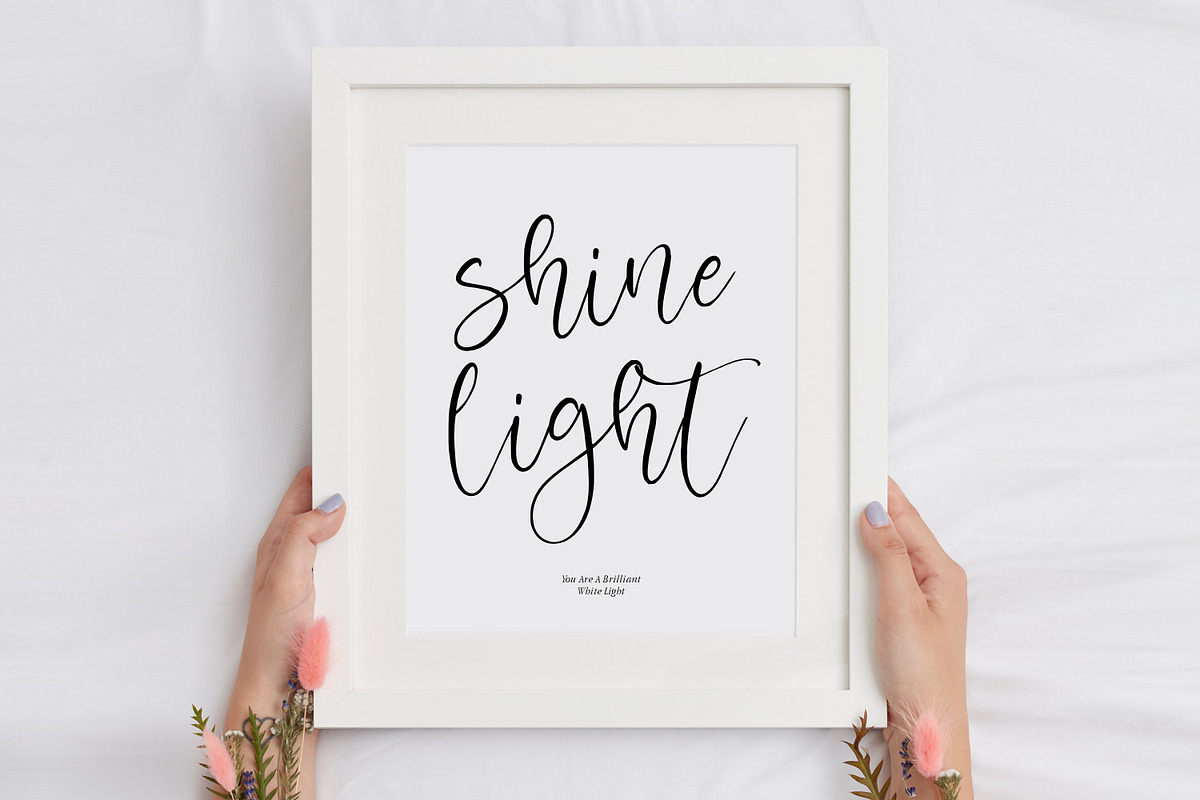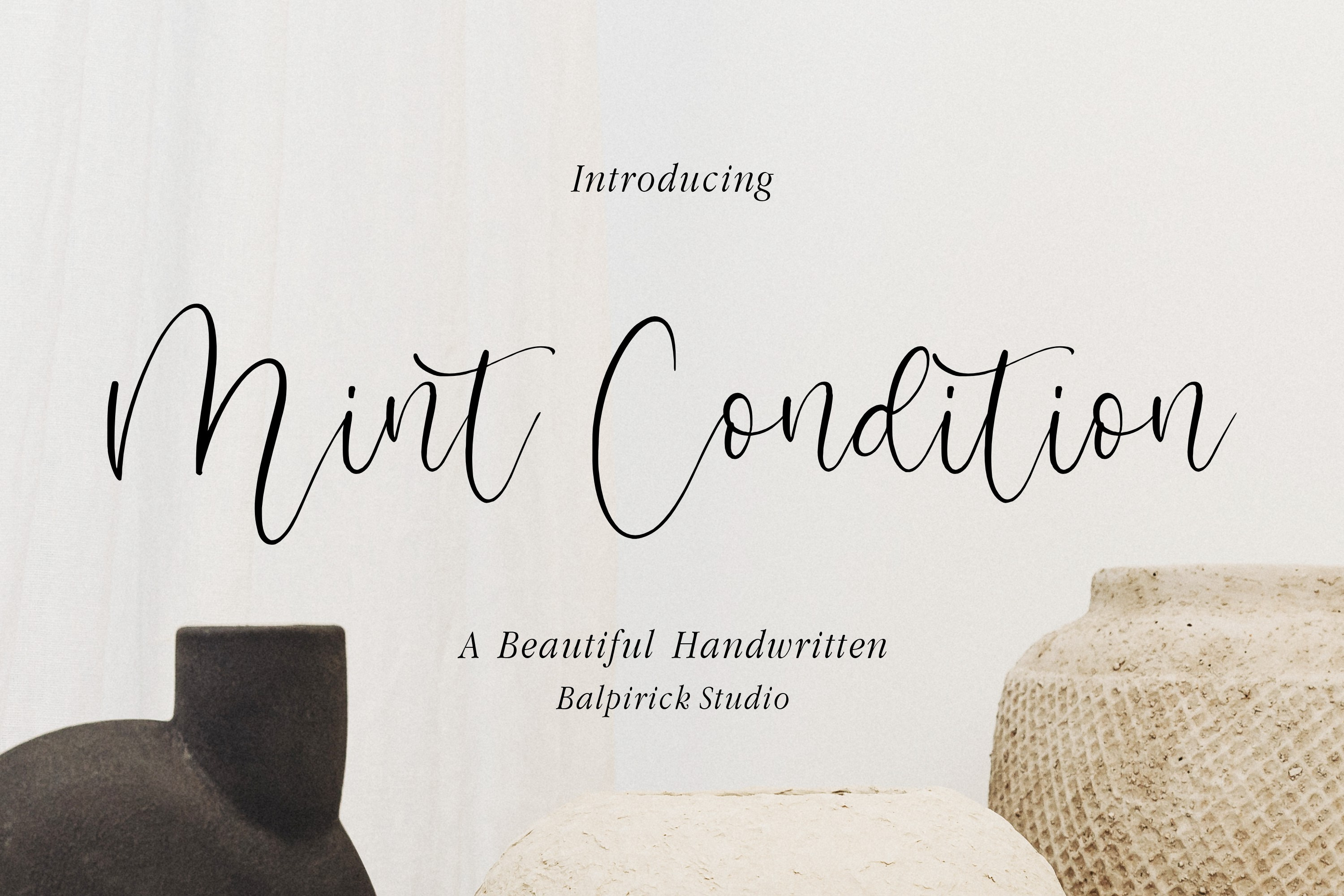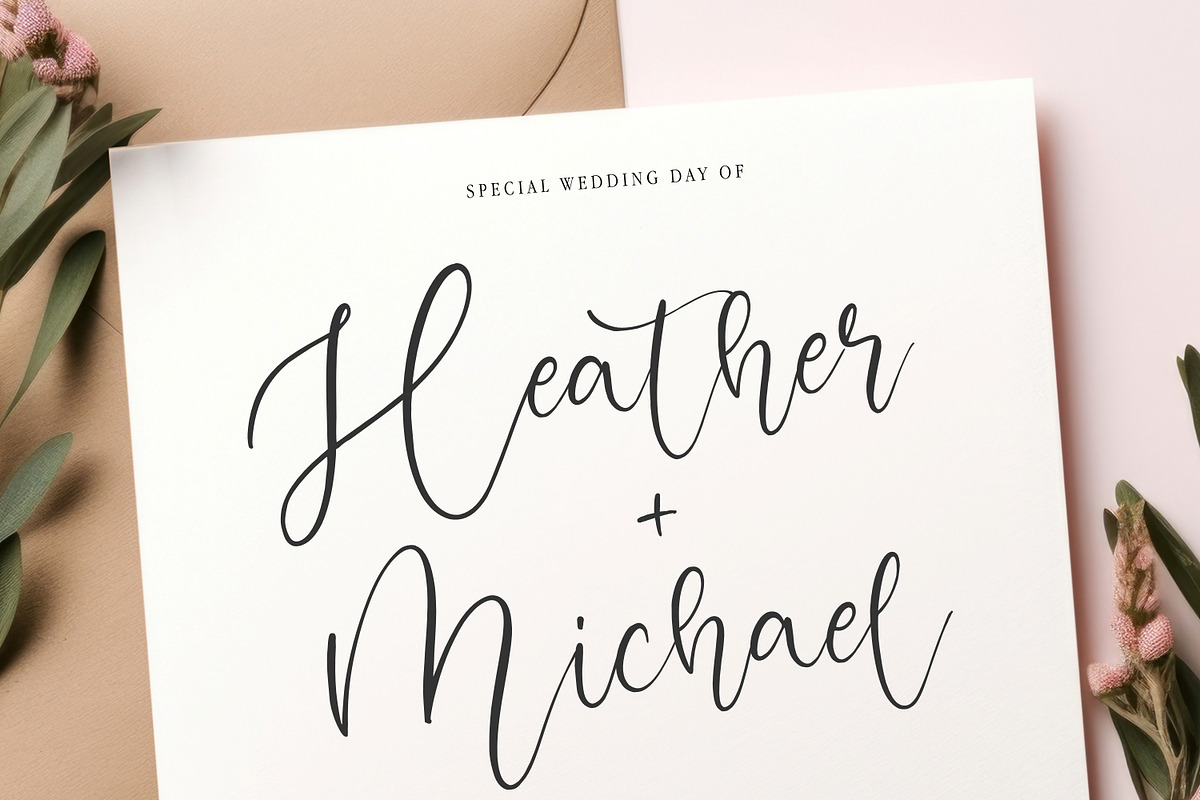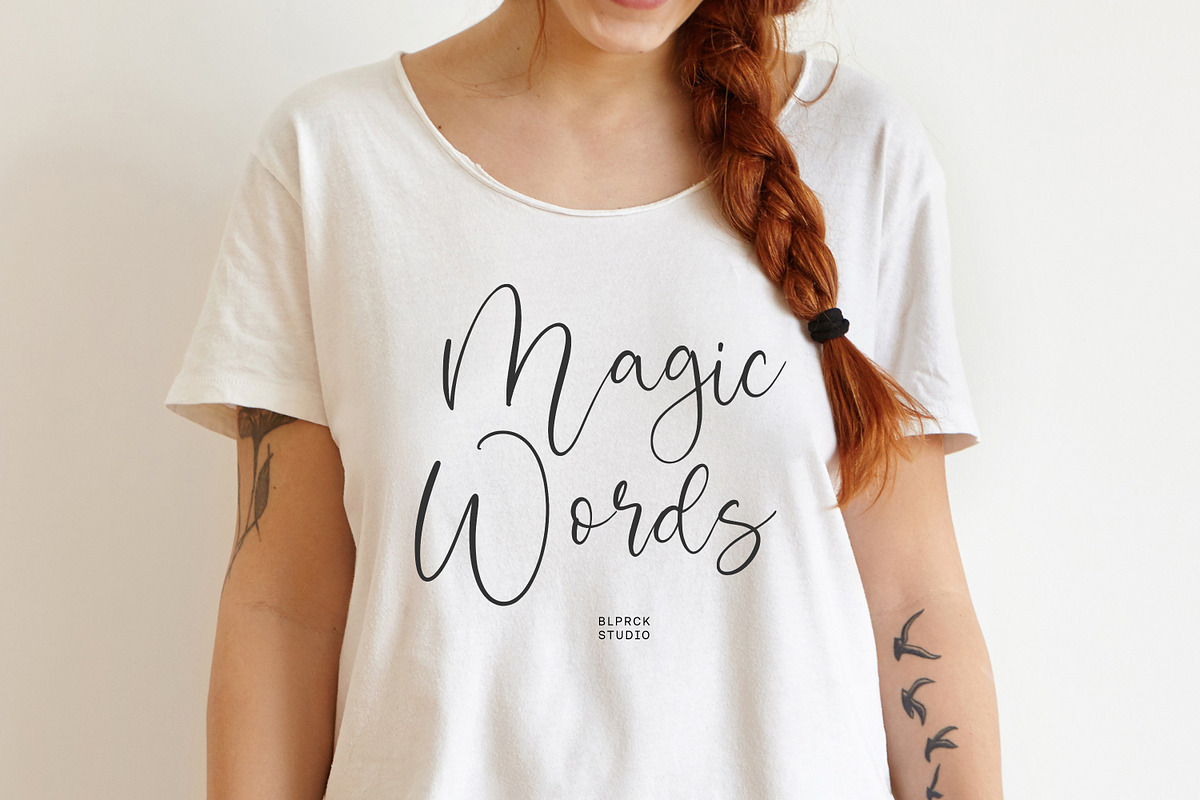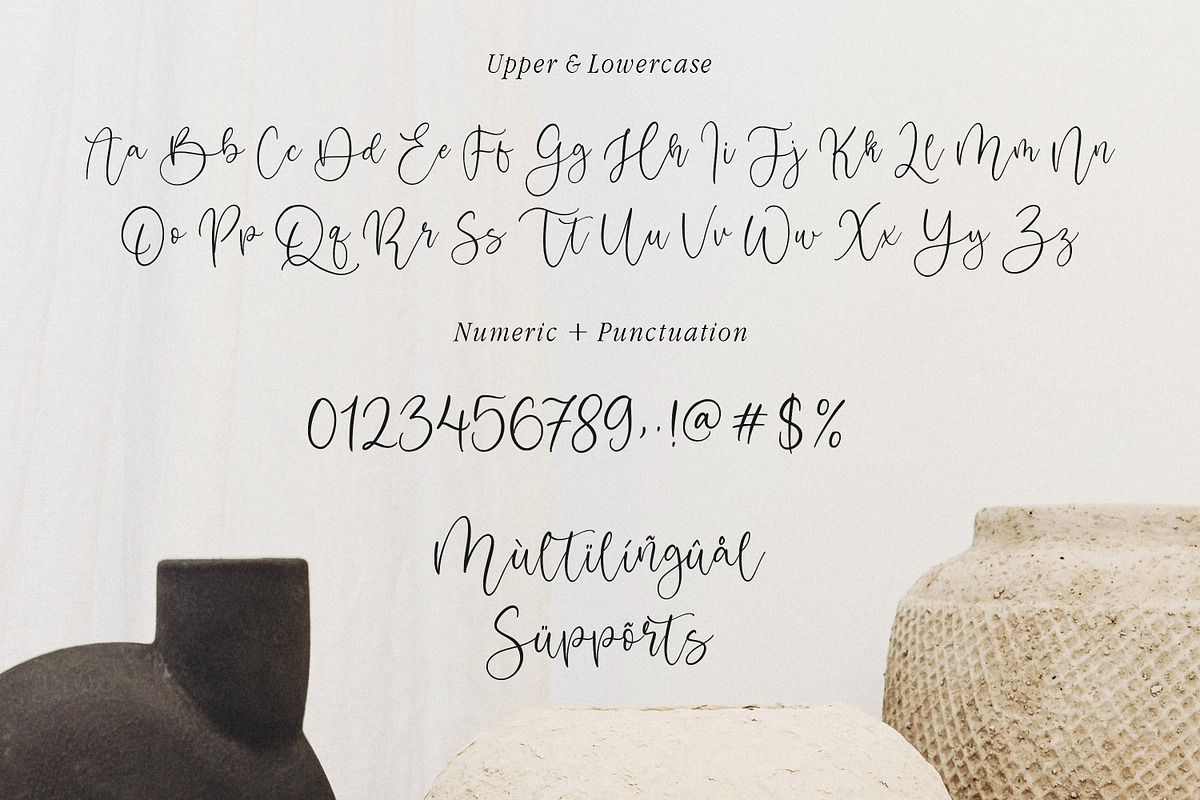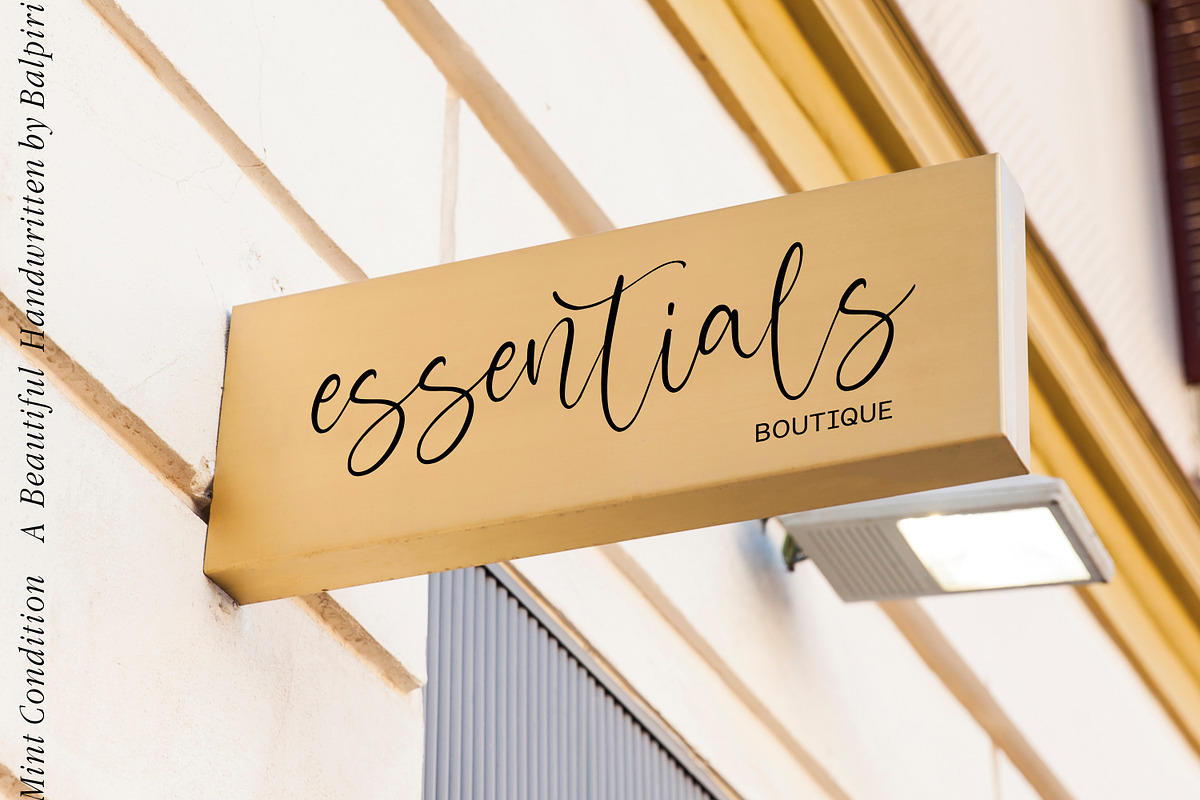
Mint Condition Beautiful Font
Mint Condition is a Beautiful Handwritten Script Font that's perfect for adding a personal touch to your design projects! With its natural, organic feel and unique character.
Crafted with care and attention to detail, this font is incredibly versatile and can be used for a range of design projects, including logos, branding, invitations, and more. Its modern, handwritten style gives it a unique character that's sure to make an impact.
- also multilingual support